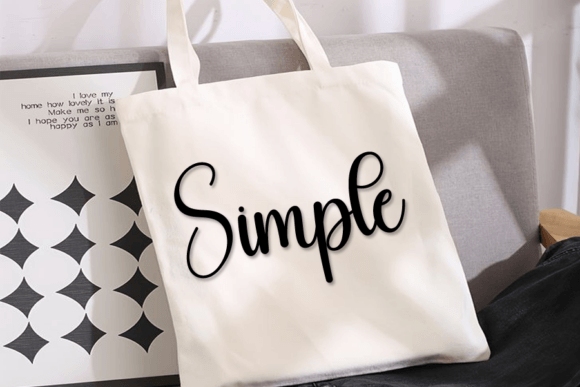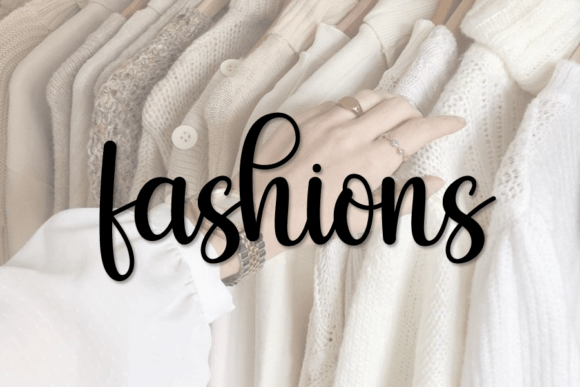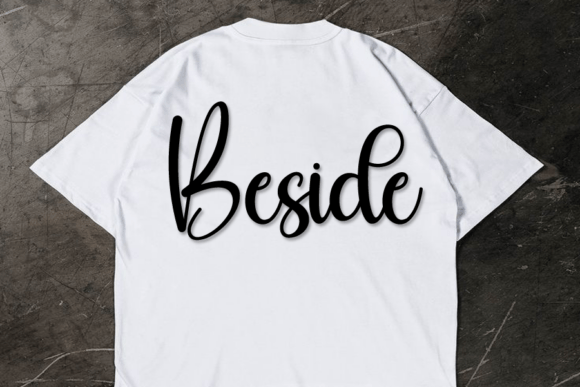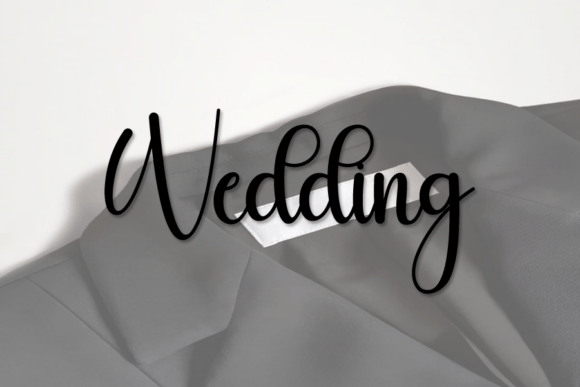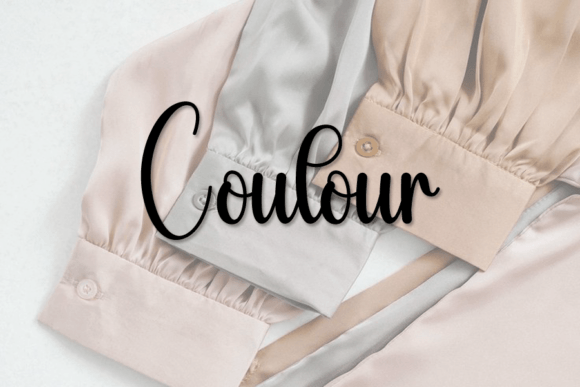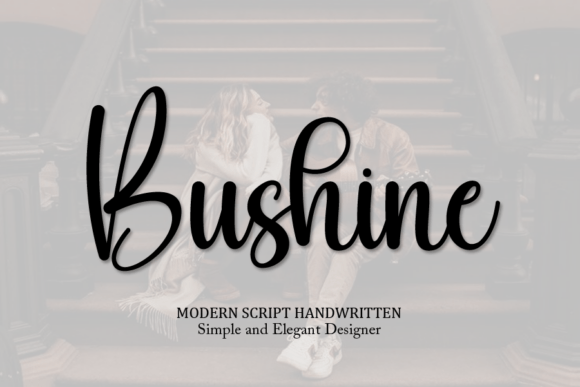
The Bushine Font: A Timeless Classic for Creative Projects
Have you ever been in the middle of a design project, and suddenly, you’re stuck on finding the perfect font? I recall a recent experience where I was working on a branding project for a fashion client, and I just couldn’t find a font that captured the essence of their brand. That’s when I stumbled upon the Bushine font, and it completely transformed my design. In this article, we’ll dive into the world of Bushine, exploring its features, uses, and what makes it a great addition to your design toolkit.
A Personal Review of Bushine Font
As a designer, I’m always on the lookout for fonts that are versatile, easy to read, and visually appealing. Bushine font checks all these boxes and more. Here’s what I love about it:
• ✨ Classic and simple: Bushine has a timeless quality to it, making it perfect for a wide range of design projects.
• ✅ Handwritten script: The font’s handwritten style adds a touch of personality and warmth to any design.
• 🌈 Random and free style: Bushine’s unique style makes it stand out from more traditional fonts.
While Bushine is an excellent font, it’s not without its quirks. Here are a few things to keep in mind:
• 🤔 Limited use in body text: Due to its handwritten nature, Bushine might not be the best choice for lengthy body text.
• ⚠️ Kerning issues: As with any font, you might encounter some kerning issues, especially when using it in combination with other fonts.
The Story Behind Bushine Font
While the origins of Bushine font are unclear, it’s likely that it was created with the intention of producing a classic, yet unique font that could be used in a variety of design projects. The font’s handwritten style and random feel make it perfect for designers looking to add a touch of personality to their work.
What type of projects is Bushine font best suited for? Bushine font is versatile and can be used in a wide range of projects, including logotypes, headlines, branding, apparel, posters, and more.
What are some common issues to watch out for when using Bushine font? Some common issues to watch out for when using Bushine font include kerning issues and limited use in body text.